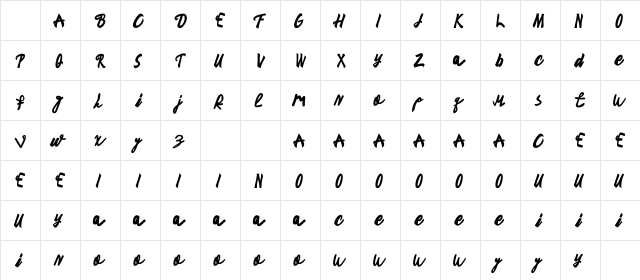
Genta is a composed and adaptable typeface that performs quietly and consistently across a wide range of design contexts. Its bold stroke weight gives it real presence on the page.